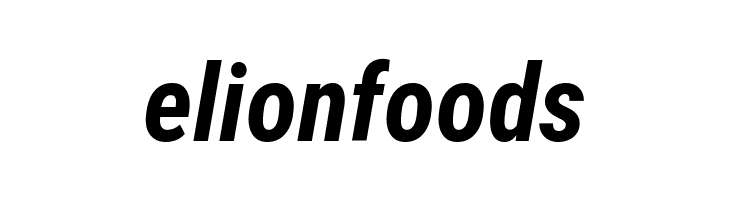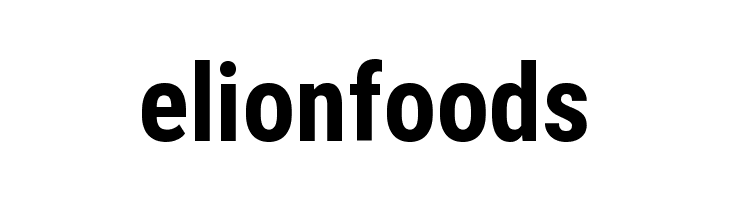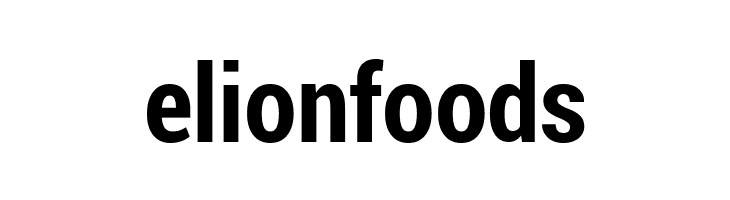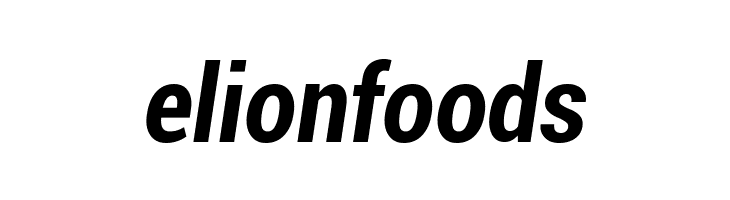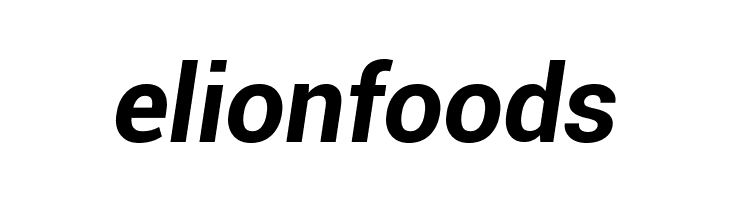
A modern, bold sans-serif font with a clean and geometric design.
A bold, condensed typeface with a modern and clean aesthetic.
A bold, condensed, and italic font with a modern and dynamic style.
A modern, bold, and italicized font with a clean and dynamic appearance.
A modern, bold, and condensed sans-serif font with excellent legibility.
A modern, condensed, bold italic font with a sleek and professional appearance.
A modern, italicized sans-serif font with medium weight and normal spacing.